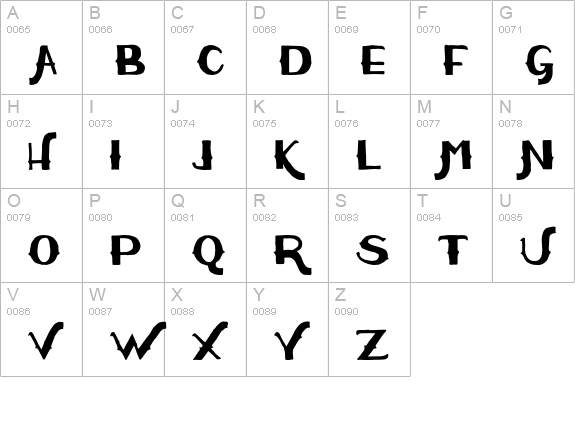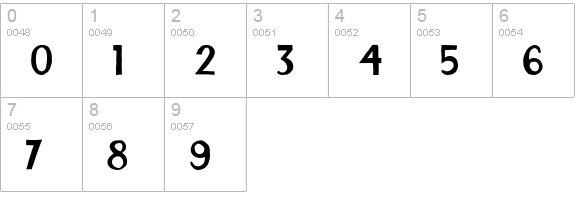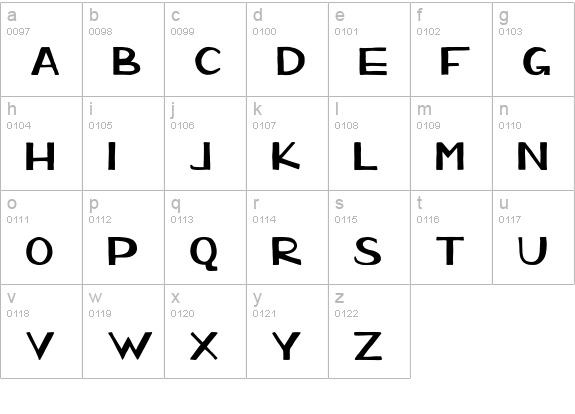
Wolder Font Details
Wolder font is a versatile typeface that strikes the perfect balance between modern elegance and timeless sophistication. With its clean lines and stylish curves, Wolder is ideal for a wide range of design projects, from branding to editorial design. This exquisite font is sure to make your creations stand out with its unique blend of classic charm and contemporary flair. Whether you're working on a logo, website, or print materials, Wolder font will bring a touch of refinement to your work. And the best part? Wolder font is available for free download at FontsMarket.com! Simply head over to the website to get your hands on this stunning typeface and start adding a touch of sophistication to your designs today.